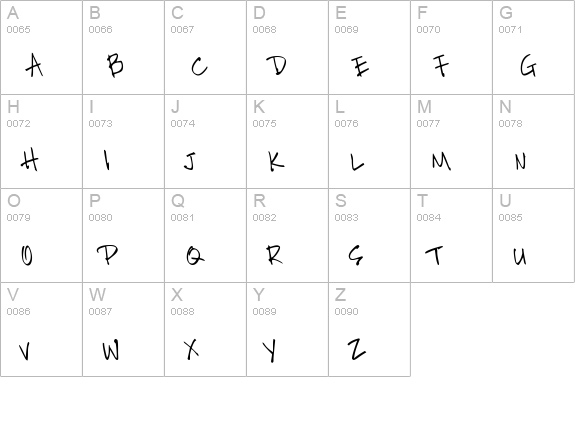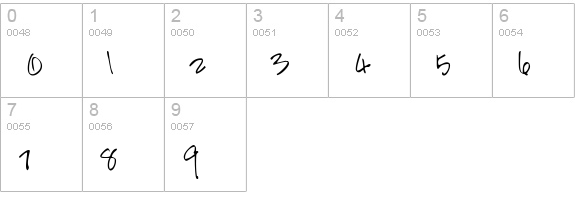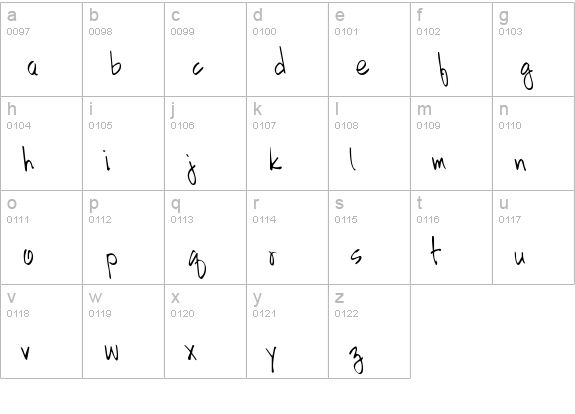
HandScriptLefty Regular Font Details
HandScriptLefty Regular is the standard, neutral variant in the HandScriptLefty typeface family \xE2\x80\x94 well suited to general body text, paragraphs, and standard typographic work.
HandScriptLefty Regular is a beautiful and expressive font that adds a touch of elegance to any design project. With its smooth curves and delicate strokes, this font captures the essence of handwritten calligraphy. Whether you are creating wedding invitations, greeting cards, or branding materials, HandScriptLefty Regular will bring a unique and personal touch to your designs. This font is perfect for those who want to make a statement with their typography. Its flowing and organic letterforms create a sense of movement and rhythm, making it visually captivating and engaging. HandScriptLefty Regular is versatile and can be used for both headlines and body text, adding a touch of sophistication to any project. With HandScriptLefty Regular, you have the freedom to express your creativity. This font allows you to experiment with different letterforms, sizes, and spacing, giving you endless possibilities to customize your designs. Its timeless and classic design ensures that your work will stand the test of time. The best part is that HandScriptLefty Regular is freely available to download at FontsMarket.com. You can easily access this font and start using it in your designs without any hassle. Whether you are a professional designer or a hobbyist, this font is a valuable addition to your collection. So why wait? Download HandScriptLefty Regular now and unleash your creativity. Experience the beauty and elegance of handwritten calligraphy at your fingertips. Let HandScriptLefty Regular be the perfect companion for your next design project.